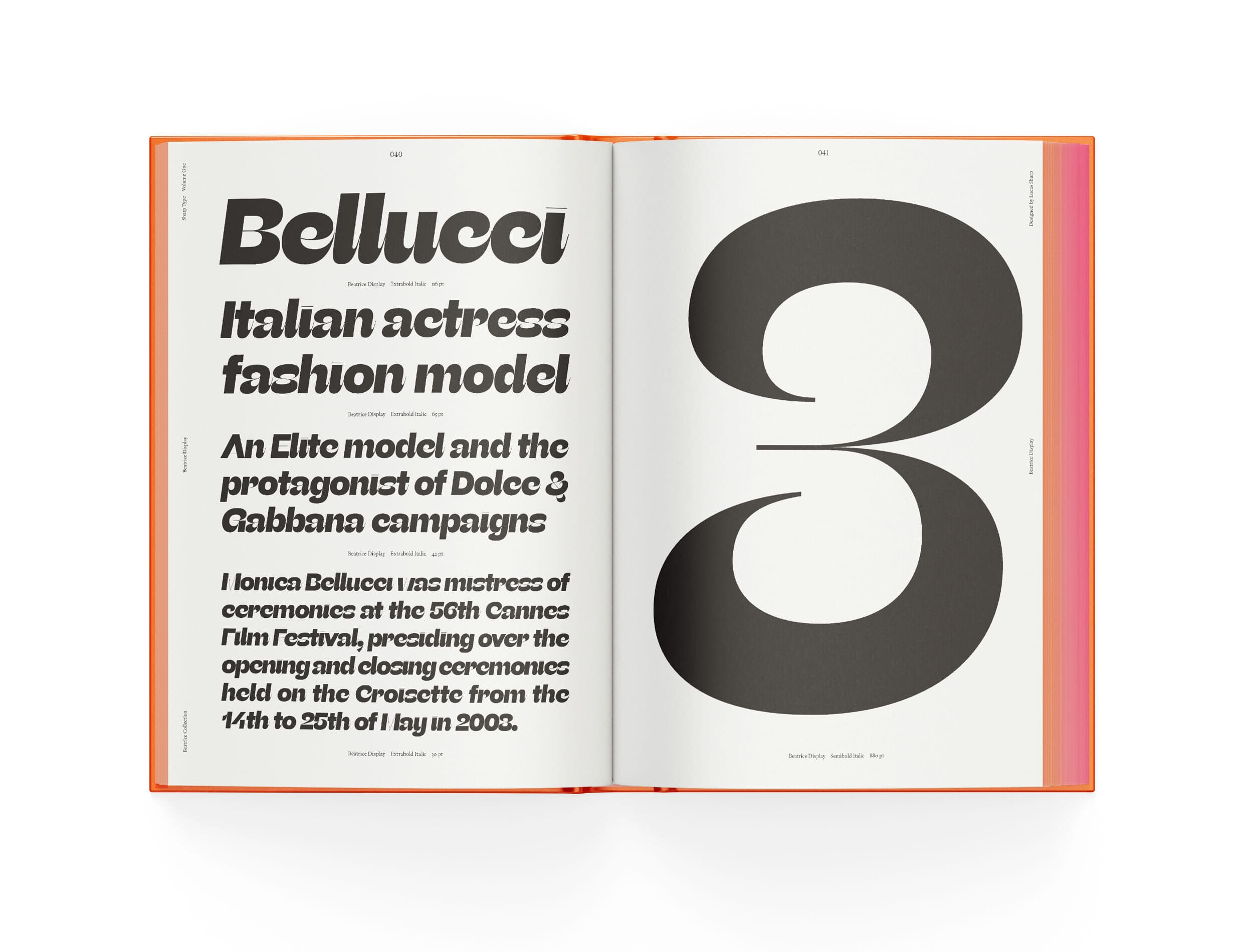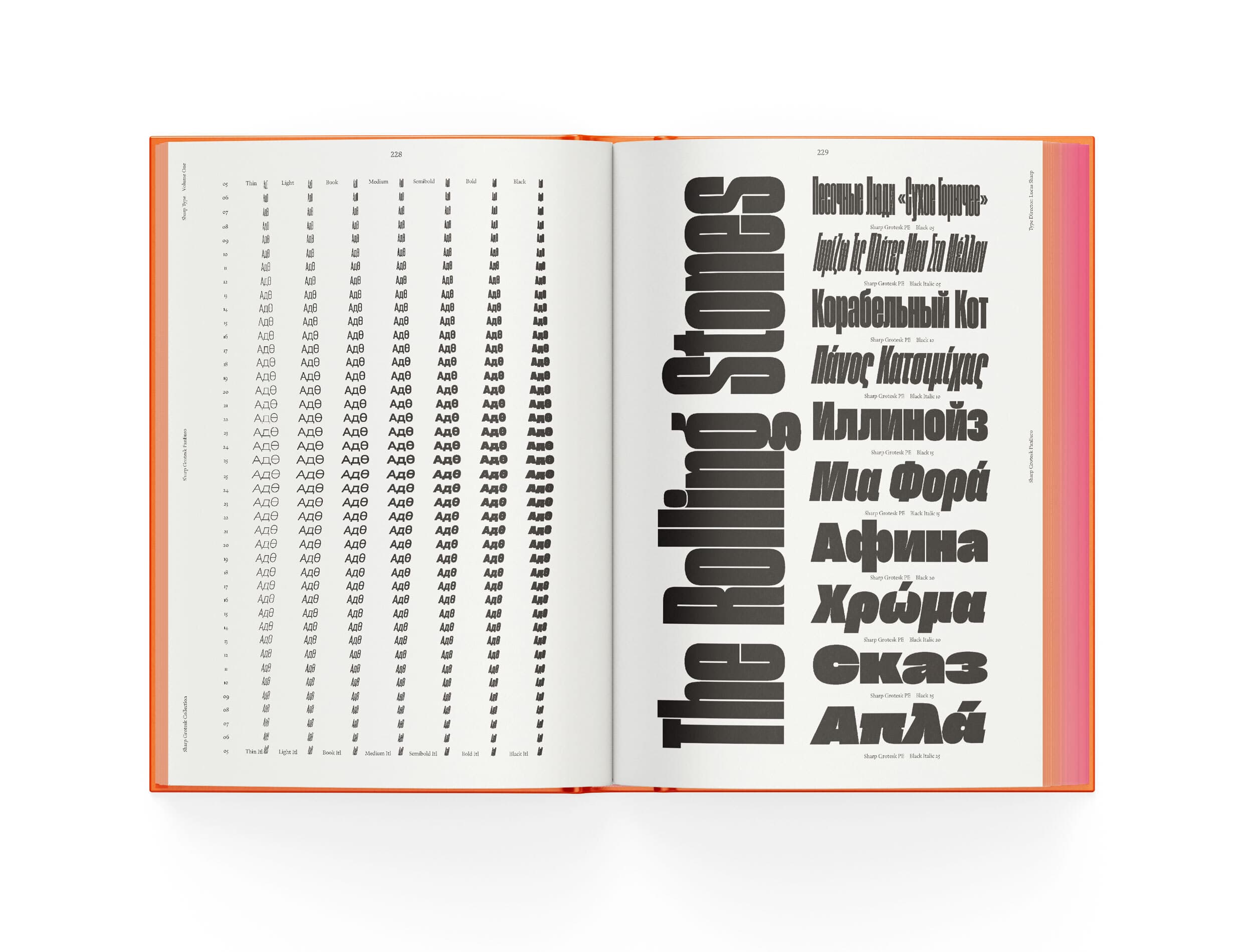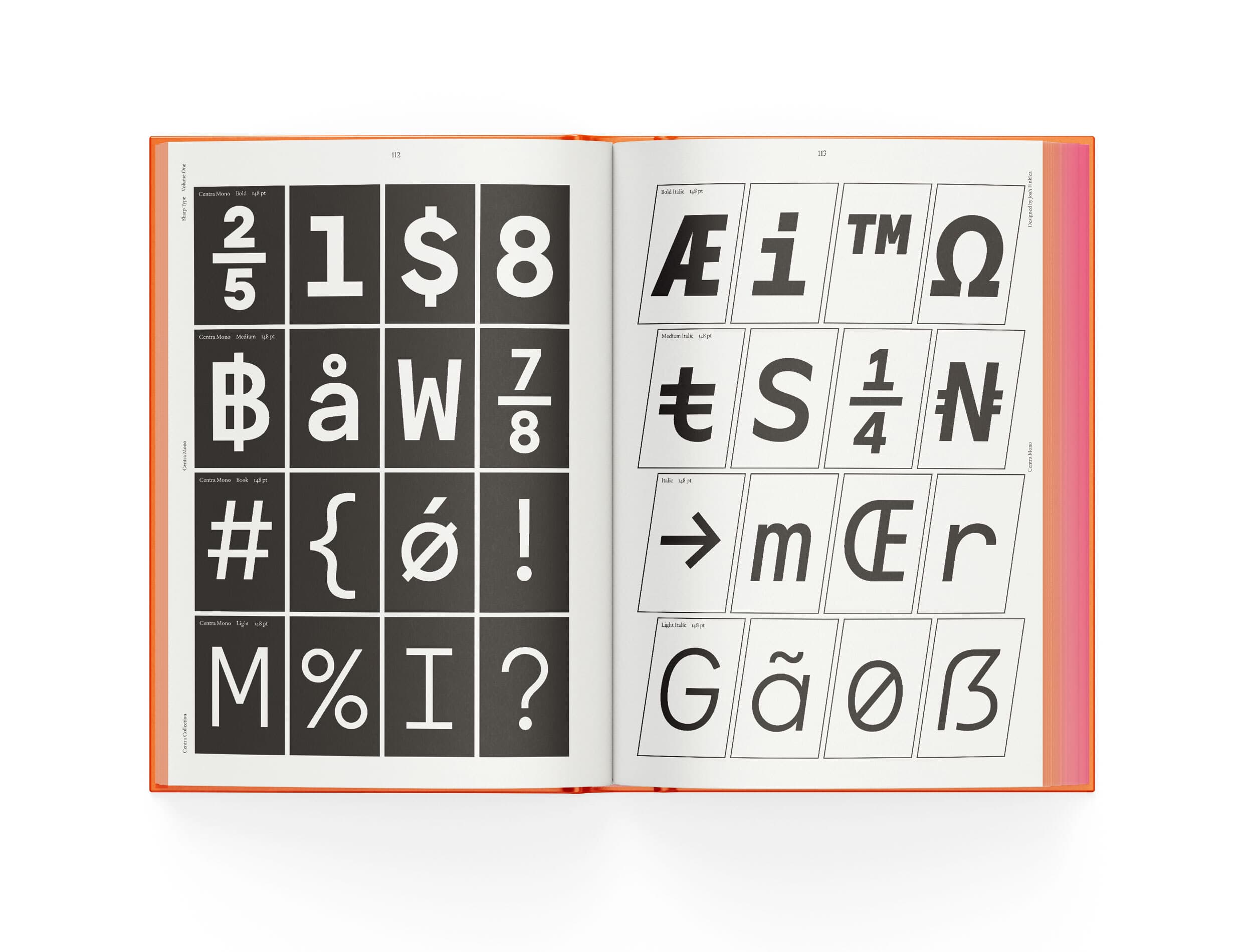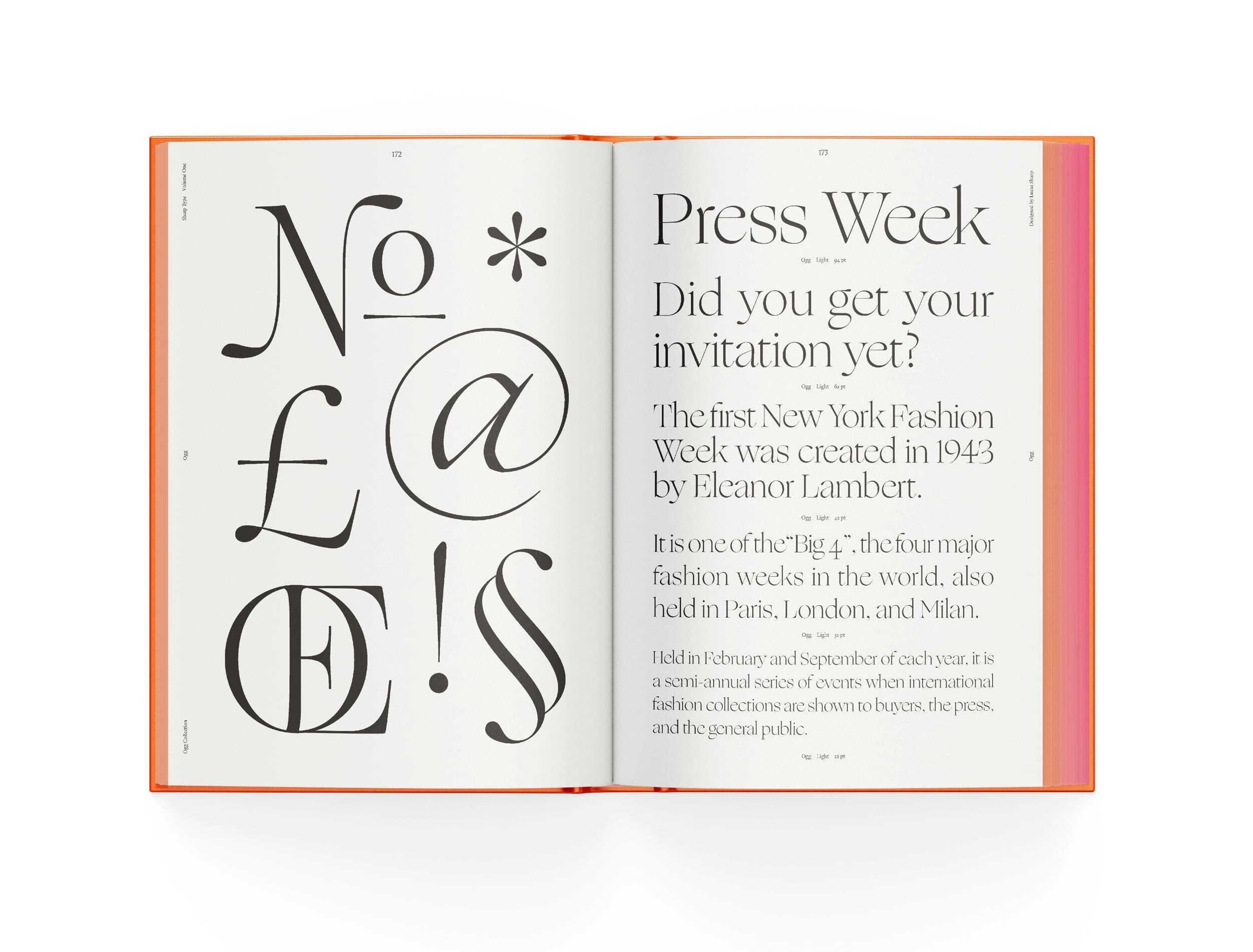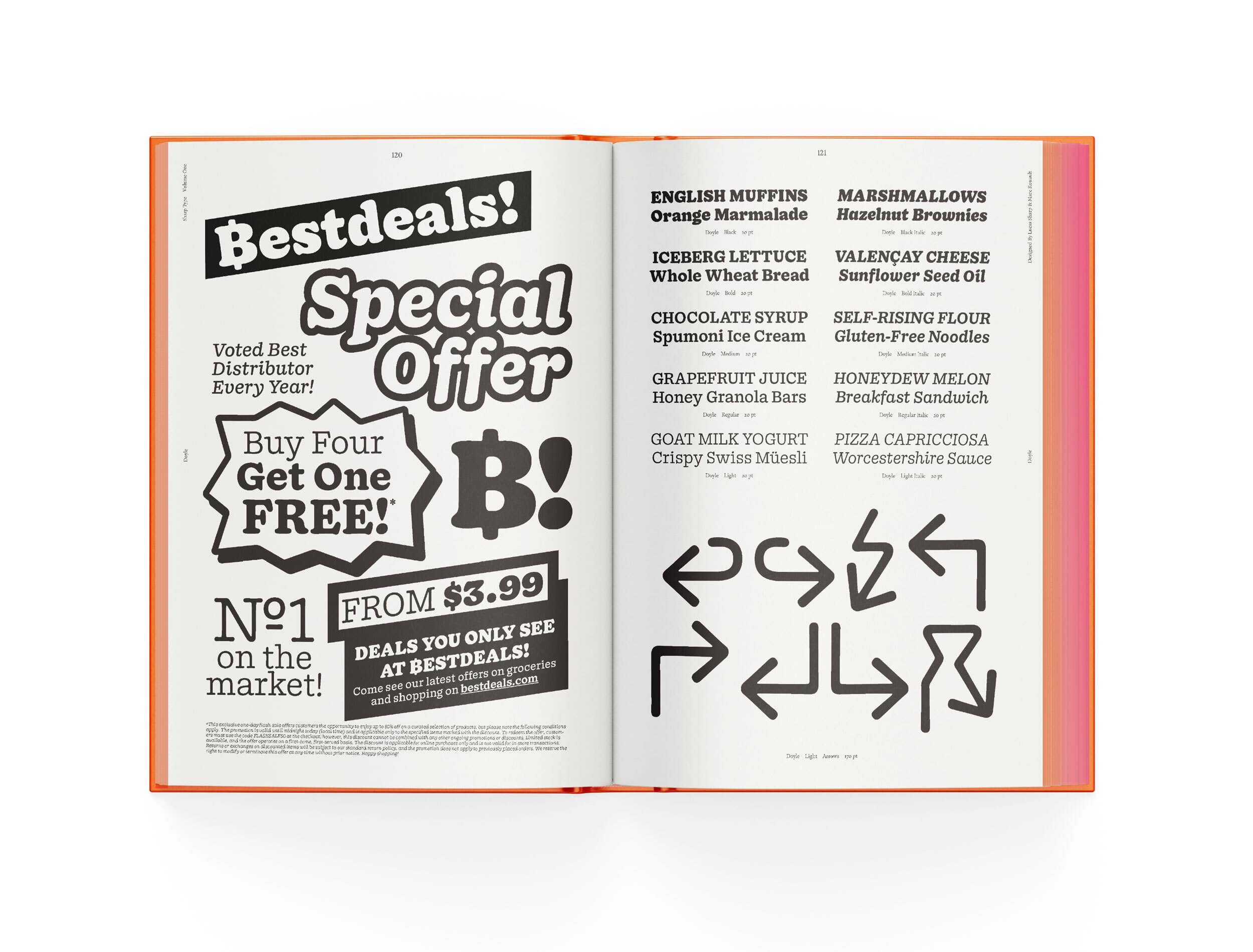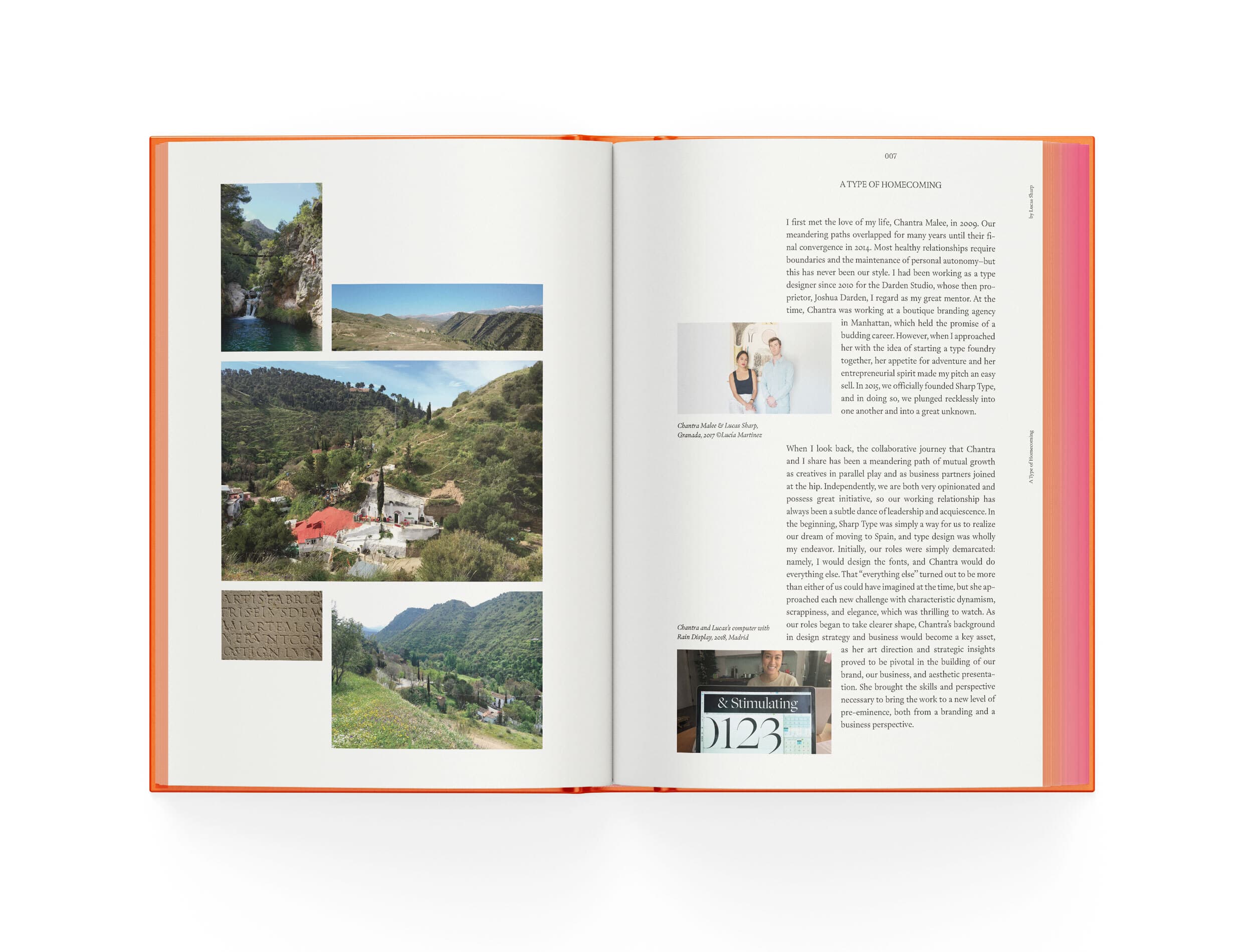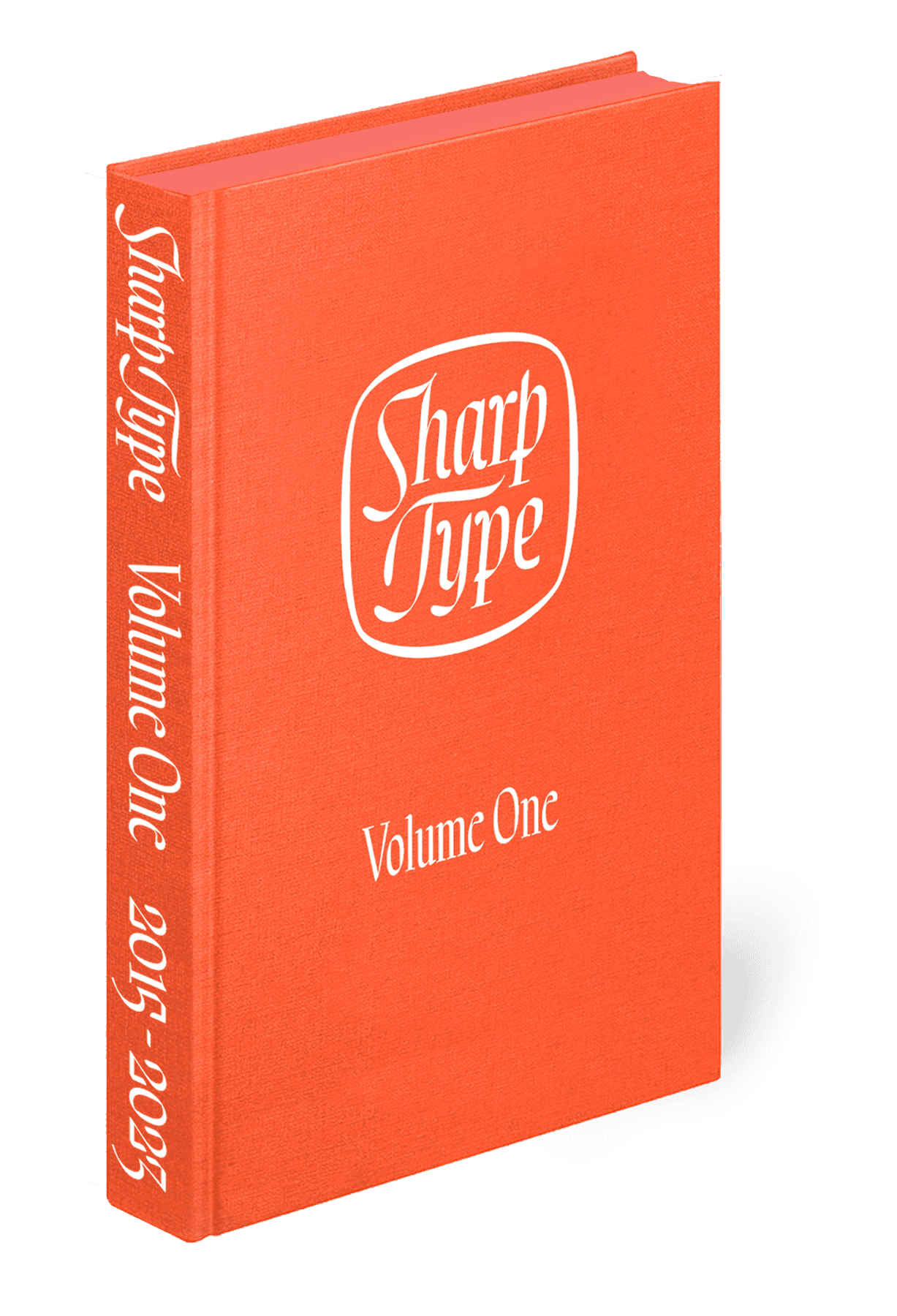
Sharp Type Volume 1 is the first comprehensive type specimen published by Sharp Type, a global type design studio. Showcasing some of the foundry’s most iconic fonts—including Ogg, Sharp Grotesk, Sharp Sans, Centra and Beatrice—the volume is a homage to the great lettering manuscripts and books that inspired so much of Sharp Type’s work and offers a deep dive into 24 unique typefaces released during the first 8 years of the studio’s history.
Includes the essay “A Type of Struggle” by Lucas Sharp, co-founder and type director of Sharp Type.
Edited by Lucas Sharp, Chantra Malee & Theodore Jahng
Design and layout by My-Lan Thuong and Léna Le Pommelet
Production by Zyanya Rodriguez and Léna Le Pommelet
Art Direction by Justin Sloane and Lucas Sharp
Body text typeface: Eros Text A & B by Lucas Sharp